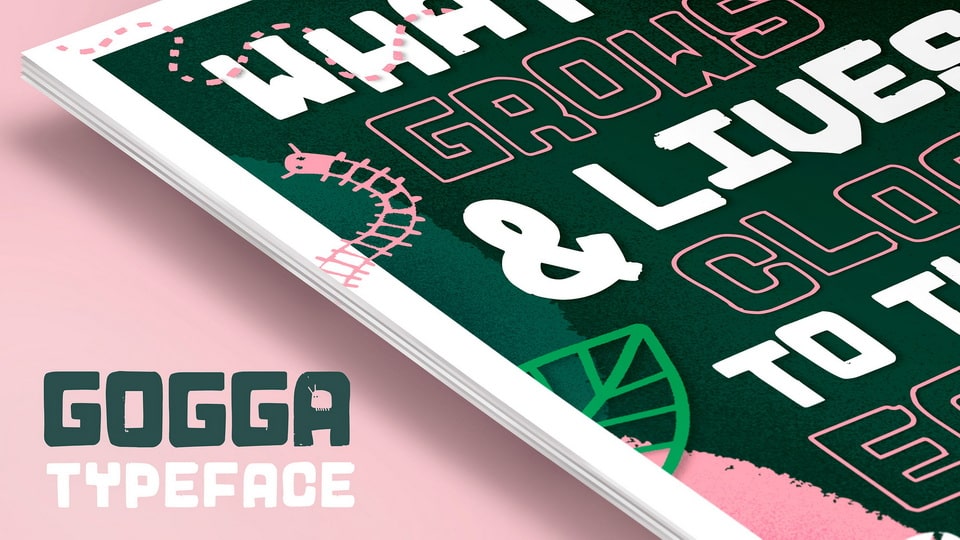
Download Gogga font, a sans serif typeface with uppercase design that comes in two variations Gogga Thorax and Gogga Exoskeleton. This bold typeface serves as a visual representation of the South African soil and hardness of it’s smallest inhabitants through the use of strong, mono width lines and imperfect shape edges.
Designer: Lauren Joy Elizabeth Bird